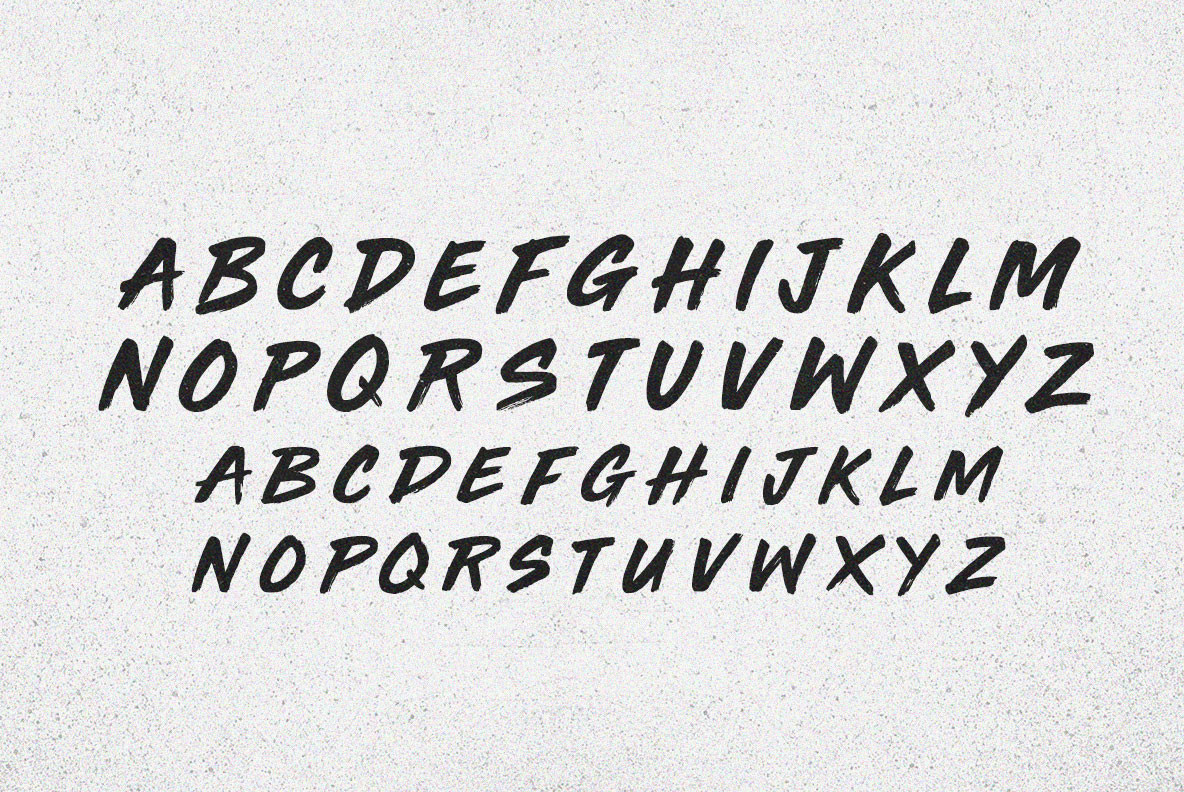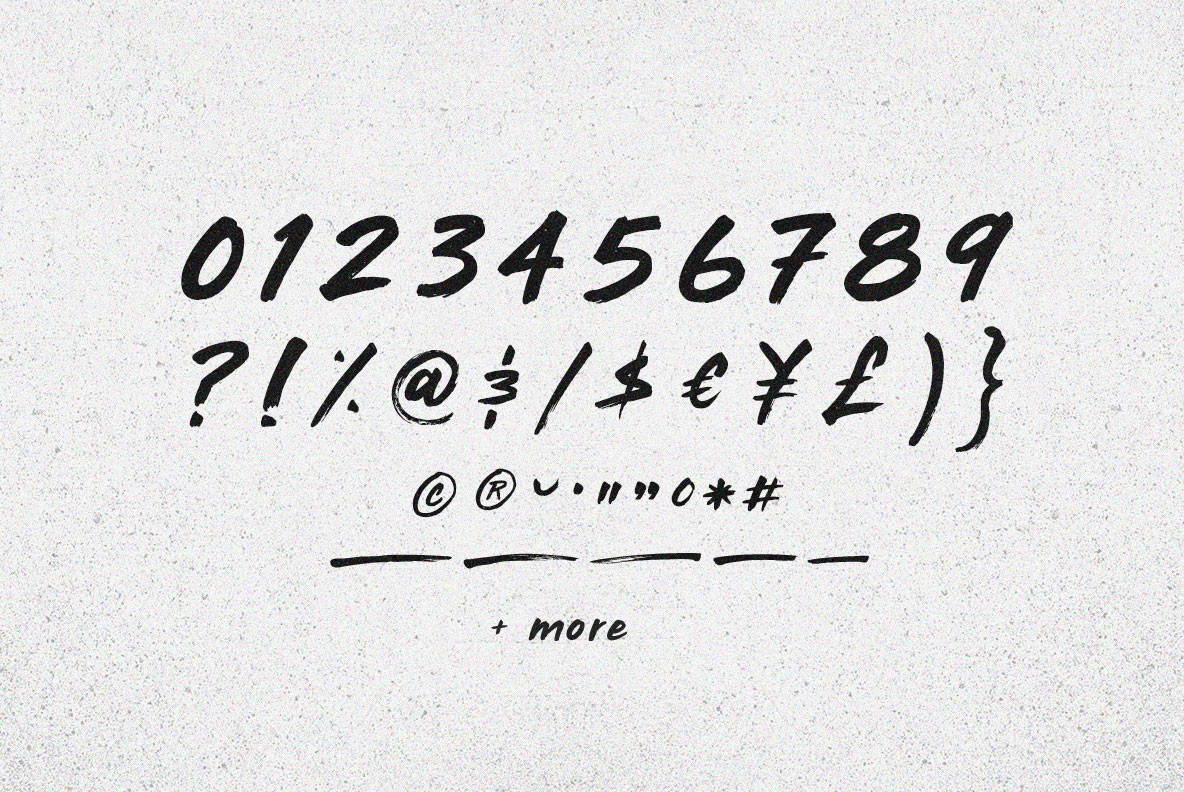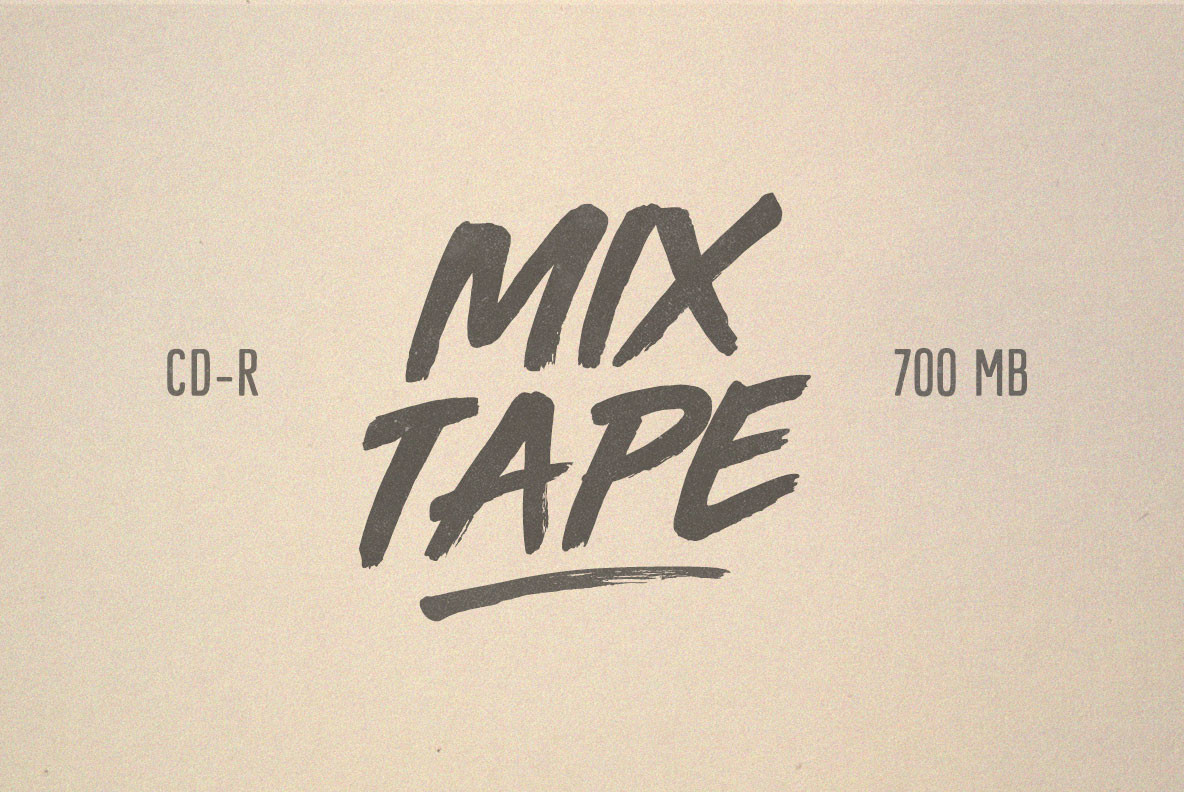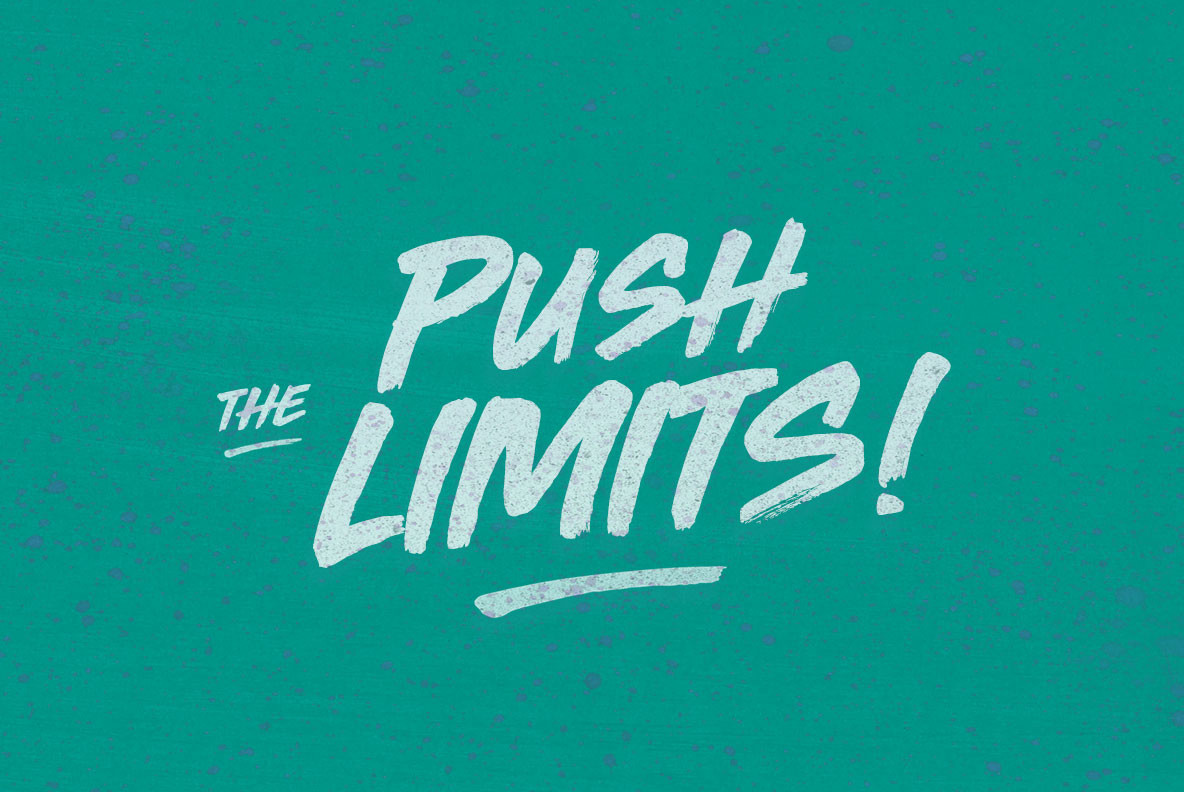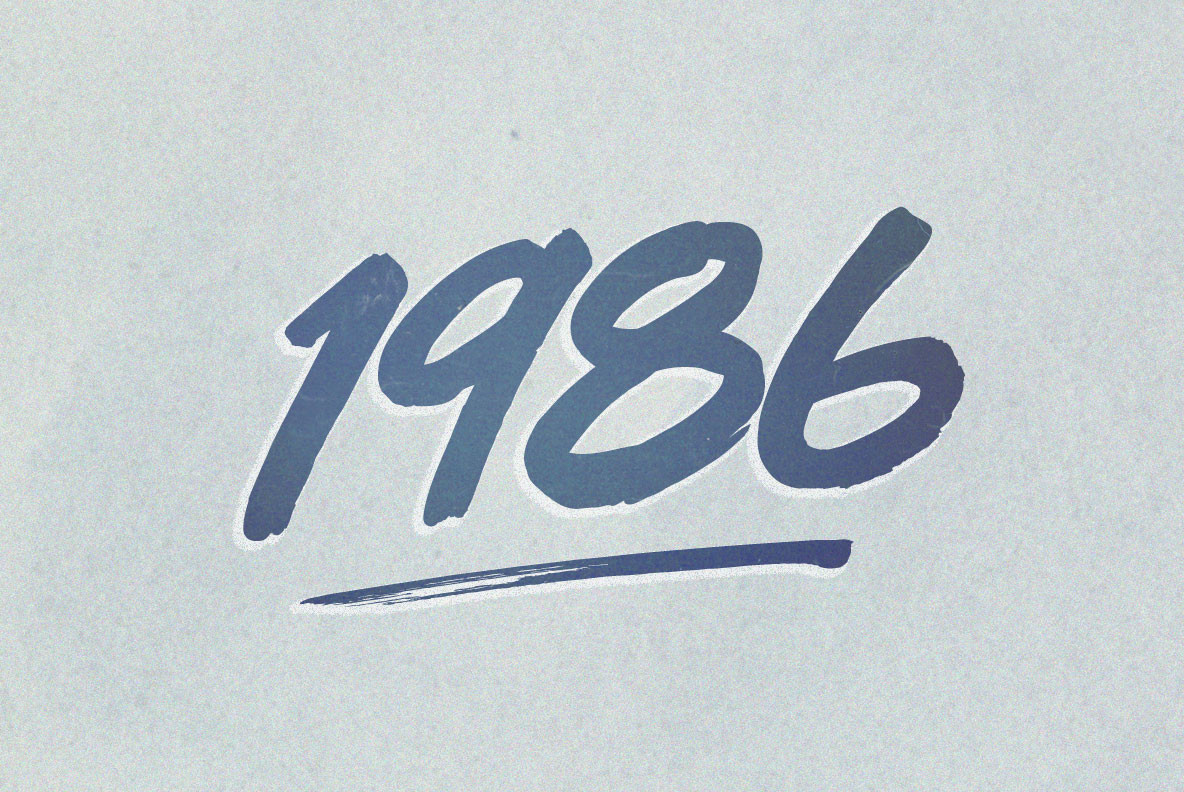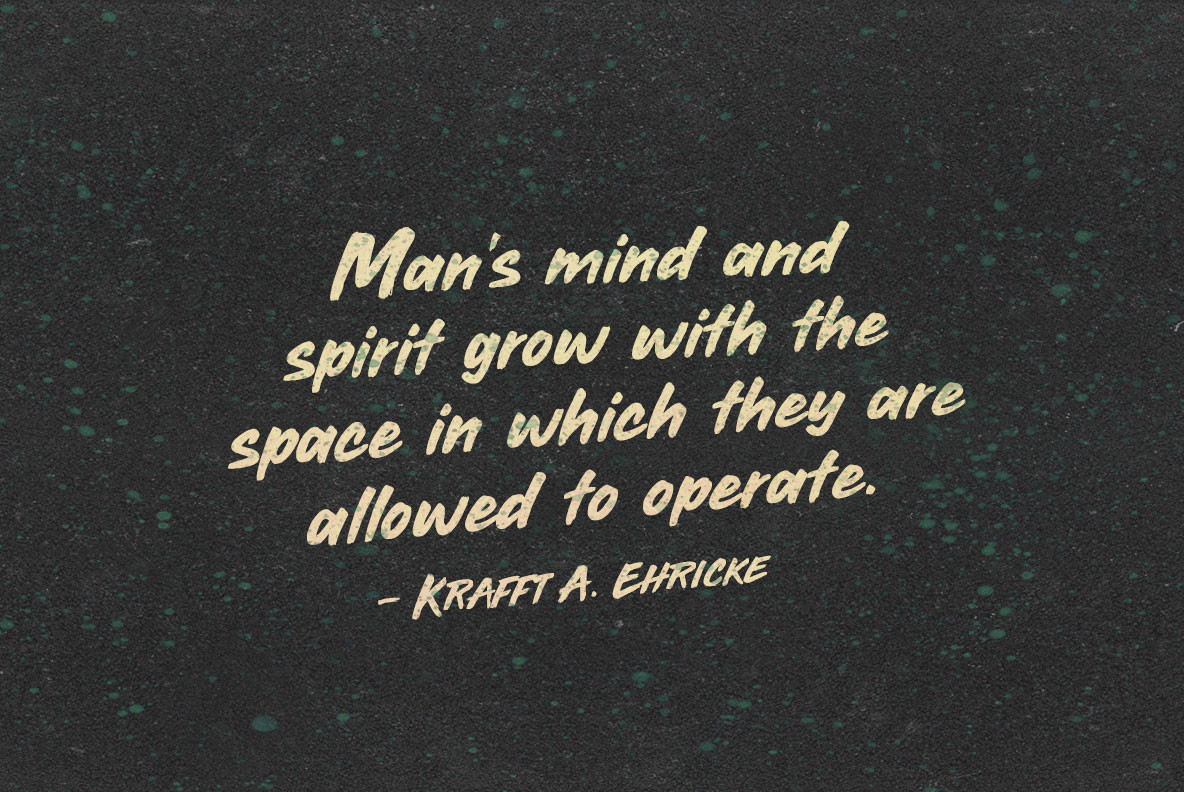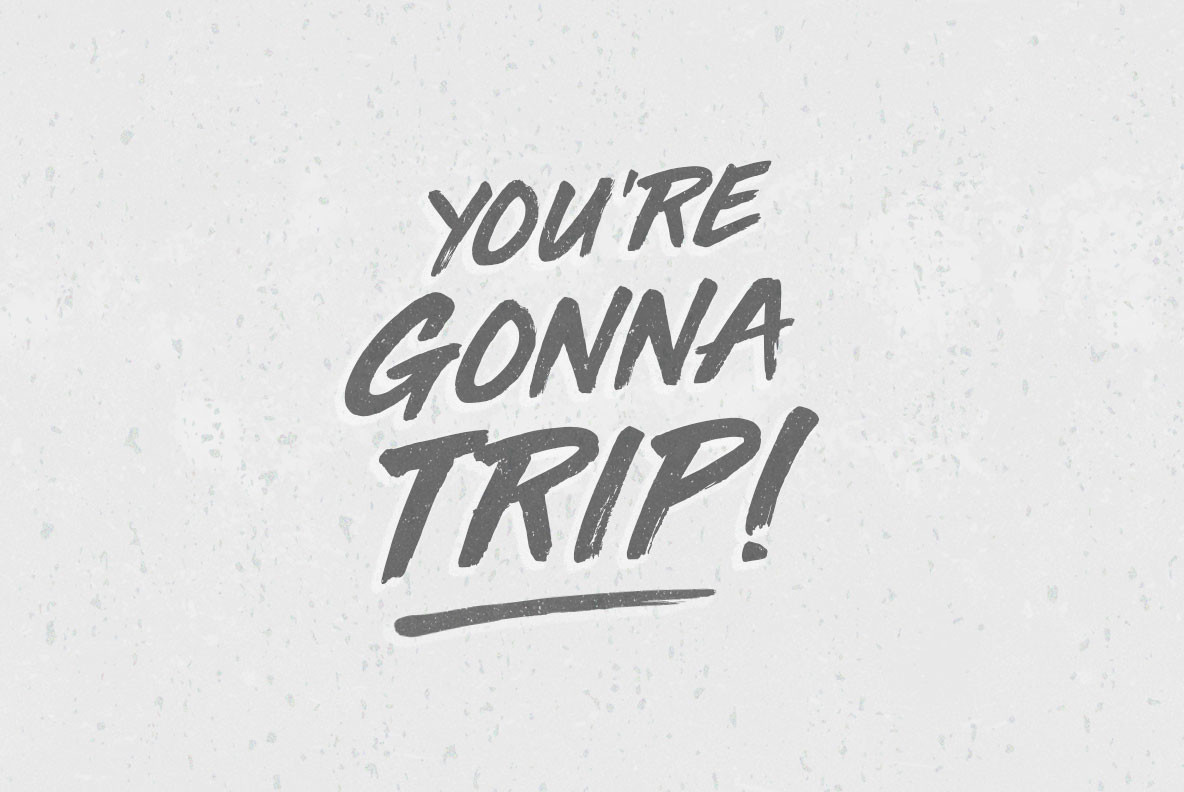
Third Rail Font
Third Rail
When new stock rolls on elevated electrics, riders reap the benefit. Lay down the Third Rail and exorcise the steamworks. Substations charge the spark effect and take traffic through the turnstiles.
BLKBK, a type foundry established with a unique vision, specializes in crafting fonts that communicate more than just letters. Each BLKBK typeface is a testament to the art of meaningful lettering, drawing inspiration from an eclectic mix of hand-painted signs, the rhythmic beats of hip-hop, the vibrant art of...